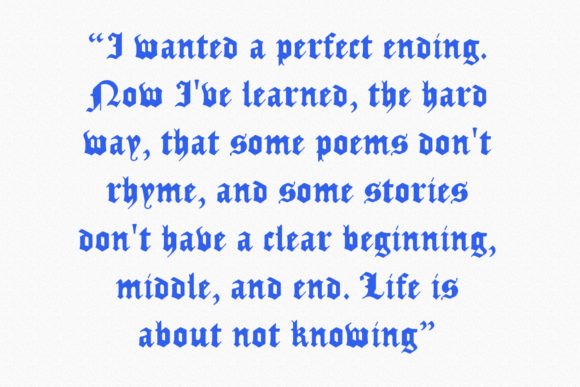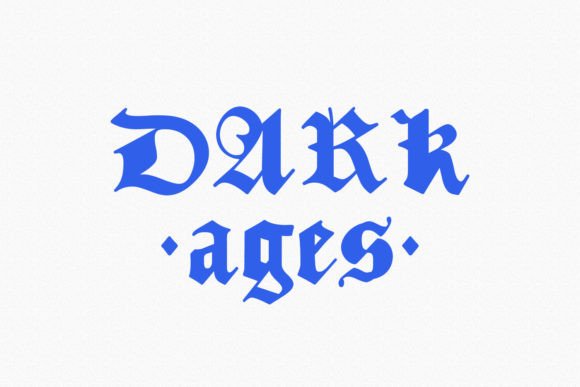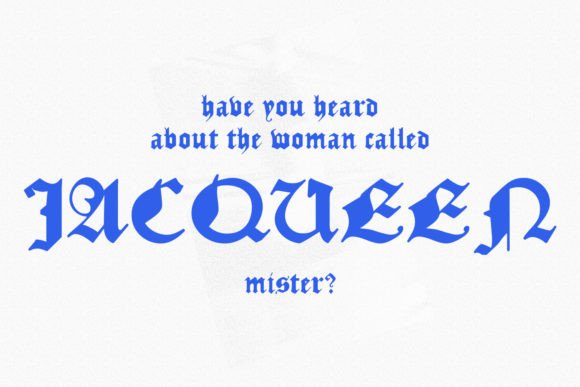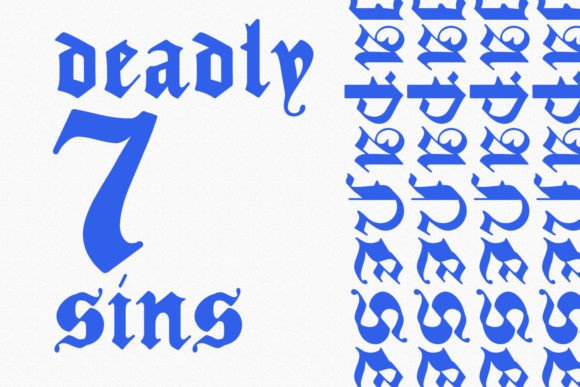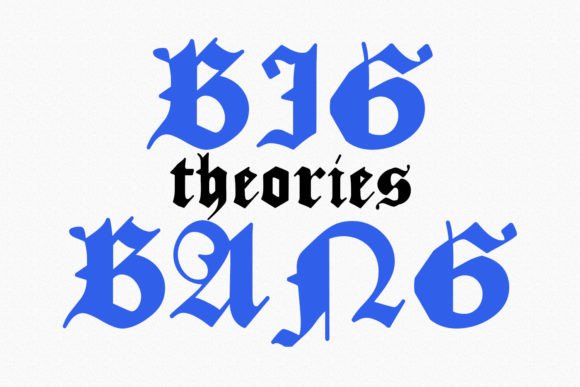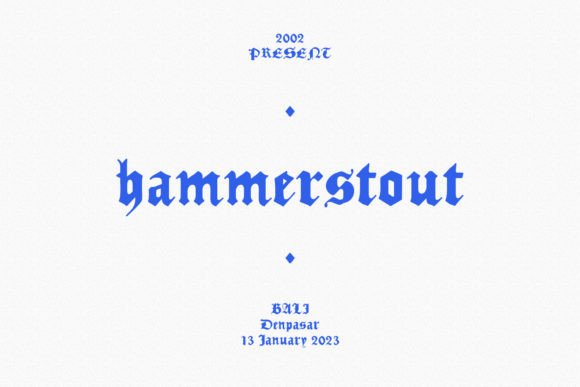
Introduction to Bazelle Font
Bazelle is a modern experimental blackletter font.
With medium low contrast stroke, fun character with a bit of ligature, and alternates to give you extra creative work Bazelle is good for logo design, social media, movies, titles, books, short text, and even long text, and good for your secondary text with a sans or serif.
Key Features of Bazelle Font
Why Choose Bazelle Font?